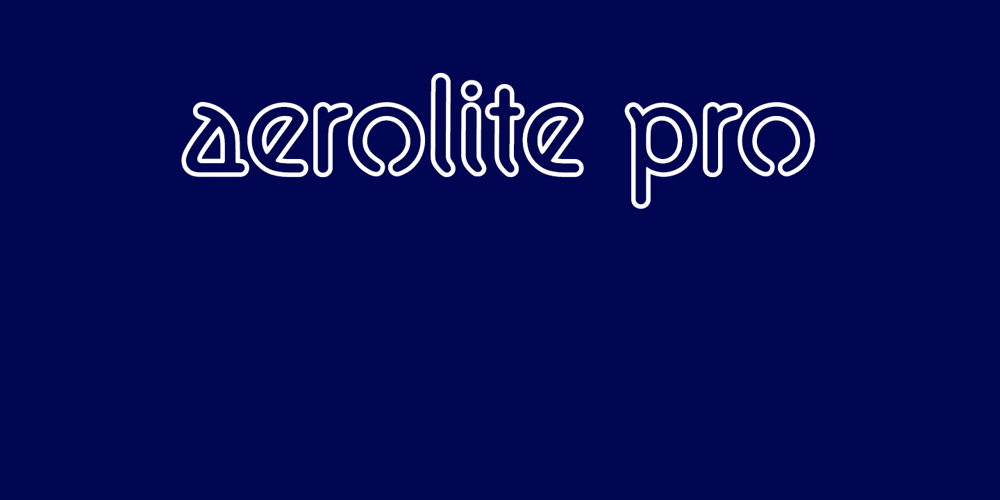
Aerolite Pro Font Family was designed by Roger S. Nelsson, Brian Kent, Jan Paul and published by CheapProFonts. Aerolite Pro contains 2 styles and family package options. The history of Aerolite, from Jan Paul: “The Aerolite fonts are essentially stripped down versions of a complex outline typeface I designed for the first Midnight Oil album in 1978, affectionately known as “The Blue Meanie”. Many years later I saw the font “powderworks” and asked Brian Kent if he would be interested in digitizing Aerolite. Brian is a font (!) of knowledge and was of invaluable help by getting Aerolite to where it is today. Special care was taken in keeping the distinct character while as Aerolite Regular also providing a legible, thouroughly kerned body type which can be used in all sizes for large volume text.” For the Pro version the kerning has been tweaked further, and the character set completed and expanded – and the alternate uppercase A (also with accents) is available as OpenType stylistic alternates. It is now ready for your next international science or sci-fi project. ALL fonts from CheapProFonts have very extensive language support: They contain some unusual diacritic letters (some of which are contained in the Latin Extended-B Unicode block) supporting: Cornish, Filipino (Tagalog), Guarani, Luxembourgian, Malagasy, Romanian, Ulithian and Welsh. They also contain all glyphs in the Latin Extended-A Unicode block (which among others cover the Central European and Baltic areas) supporting: Afrikaans, Belarusian (Lacinka), Bosnian, Catalan, Chichewa, Croatian, Czech, Dutch, Esperanto, Greenlandic, Hungarian, Kashubian, Kurdish (Kurmanji), Latvian, Lithuanian, Maltese, Maori, Polish, Saami (Inari), Saami (North), Serbian (latin), Slovak(ian), Slovene, Sorbian (Lower), Sorbian (Upper), Turkish and Turkmen. And they of course contain all the usual “western” glyphs supporting: Albanian, Basque, Breton, Chamorro, Danish, Estonian, Faroese, Finnish, French, Frisian, Galican, German, Icelandic, Indonesian, Irish (Gaelic), Italian, Northern Sotho, Norwegian, Occitan, Portuguese, Rhaeto-Romance, Sami (Lule), Sami (South), Scots (Gaelic), Spanish, Swedish, Tswana, Walloon and Yapese.